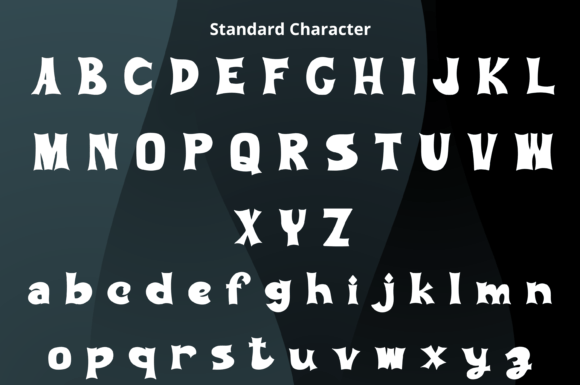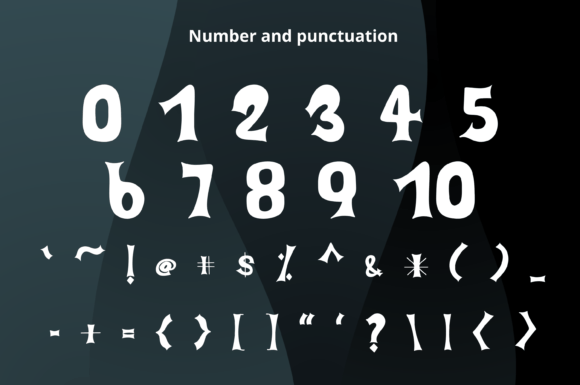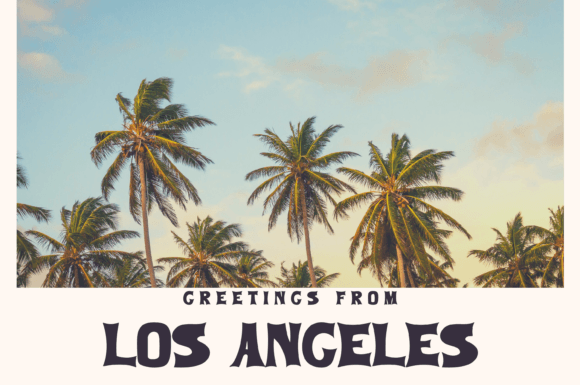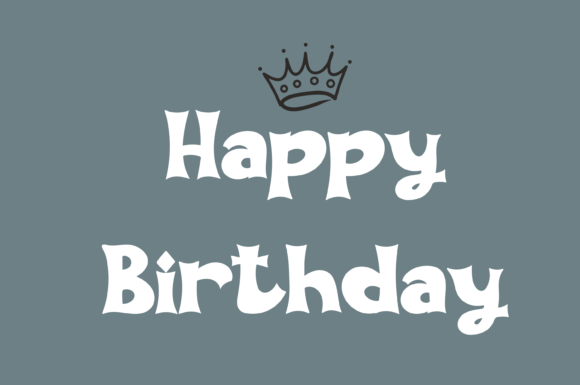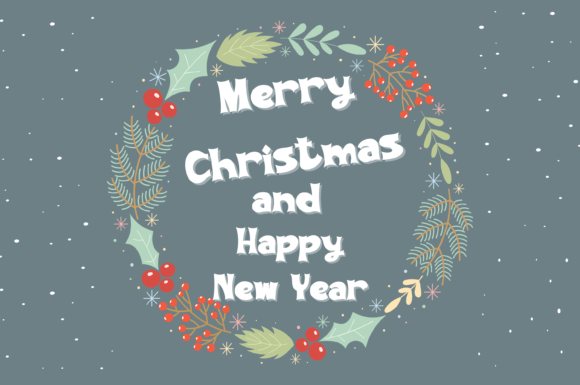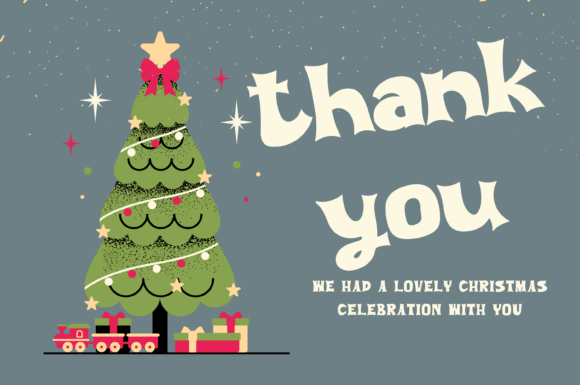
Crown Prince Font: Elevate Your Designs with Regal Elegance
In the world of typography, few fonts manage to convey the essence of luxury, sophistication, and playfulness simultaneously. Crown Prince Font is one such remarkable typeface that has captured the hearts of designers and crafters alike. This whimsical and bold display font is not just a stylish addition to your font collection; it’s a game-changer for any creative project. In this article, we’ll delve into the unique characteristics of Crown Prince Font, explore its versatility, and discuss how it can elevate your designs to new heights.
The Unique Charm of Crown Prince Font
Crown Prince Font stands out with its distinctive, whimsical flair that adds a touch of boldness and elegance to any design. Its unique character set is designed to make a statement, making it perfect for projects that demand attention and exude luxury. Whether you’re working on a branding project, a packaging design, or a creative craft, Crown Prince Font brings a level of sophistication that’s hard to match.
One of the key advantages of Crown Prince Font is its incredible versatility. This font can easily be matched with an incredibly large set of projects, making it a valuable addition to your design toolkit. From:
- Branding and Logos: Create memorable logos and brand identities that stand out from the competition.
- Posters and Flyers: Add a touch of elegance and whimsy to your promotional materials.
- Packaging Design: Elevate your product packaging with a sophisticated and eye-catching font.
- Digital Media: Use Crown Prince Font in your social media posts, website headers, and digital advertisements to create a lasting impression.
- Crafts and DIY Projects: Add a professional touch to your handmade crafts, such as personalized cards, invitations, and art pieces.
The adaptability of Crown Prince Font ensures that your creative ideas are not only noticed but also remembered.
Why Designers and Crafters Love Crown Prince Font
Designers and crafters appreciate fonts that offer both aesthetic appeal and practicality. Crown Prince Font checks all the boxes:
- Aesthetic Appeal: Its whimsical and bold design makes it a standout in any project.
- Ease of Use: Crown Prince Font is easy to integrate into various design software, making it convenient to use for designers of all levels.
- Time-Saving: With Crown Prince Font, you can achieve professional-looking results quickly, saving you time and effort.
Tips for Using Crown Prince Font
To make the most of Crown Prince Font, consider the following tips:
- Pair it Wisely: Combine Crown Prince Font with complementary fonts to create visual interest and hierarchy in your designs.
- Experiment with Colors: Don’t be afraid to try out different colors and gradients to enhance the font’s luxurious feel.
- Play with Sizes: Use varying font sizes to create emphasis and add depth to your designs.
Crown Prince Font is more than just a display font; it’s a creative tool that can transform your designs and crafts. Its unique blend of whimsy and boldness, combined with its versatility and ease of use, makes it an indispensable asset for designers and crafters. Whether you’re looking to add a touch of luxury to your branding, create eye-catching promotional materials, or elevate your handmade crafts, Crown Prince Font is the perfect choice. So, add it to your creative arsenal and watch your projects stand out like never before.